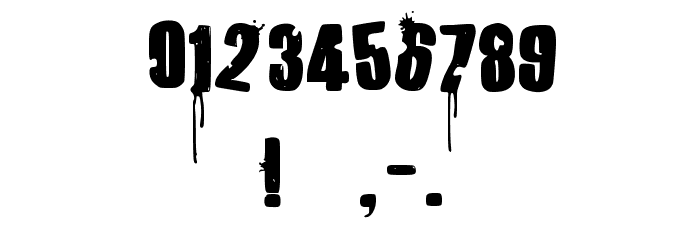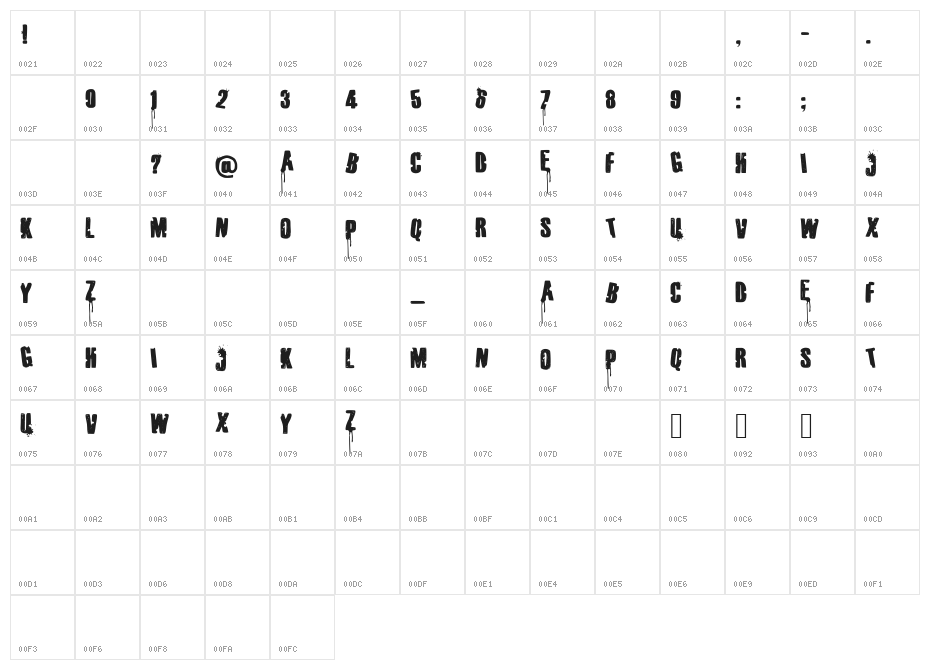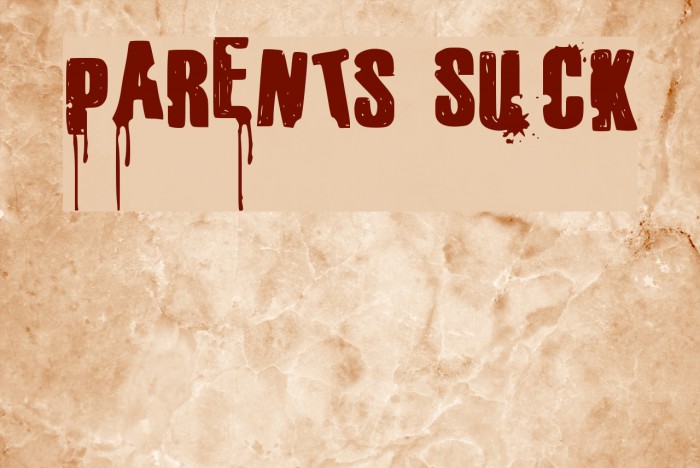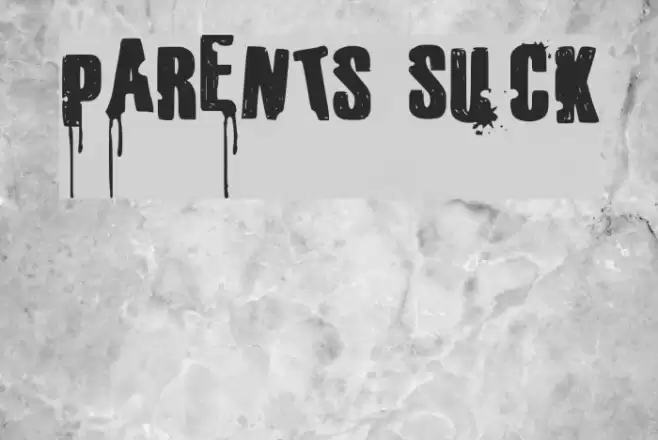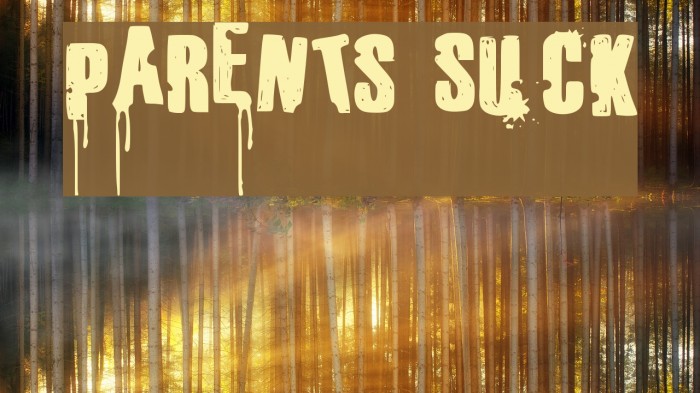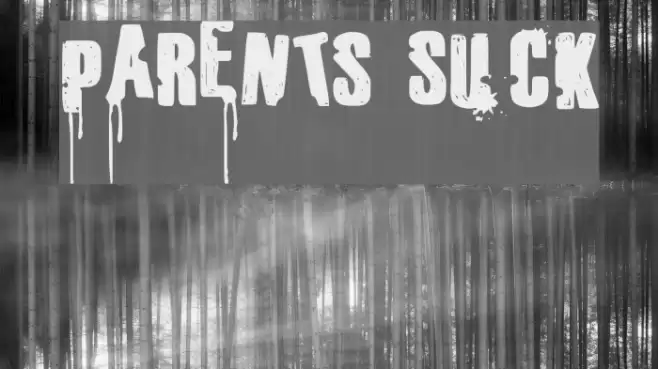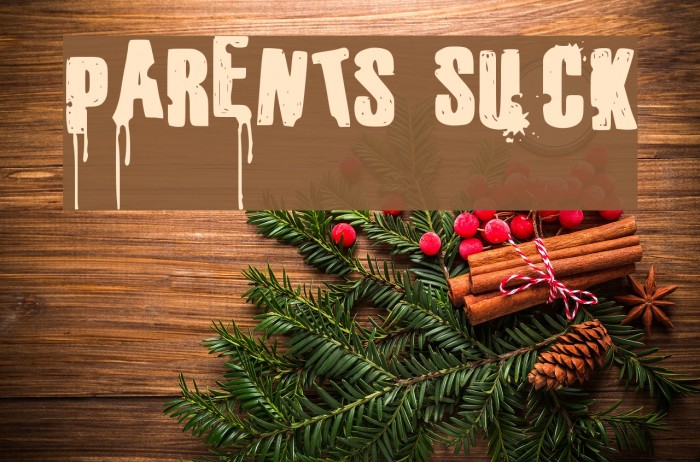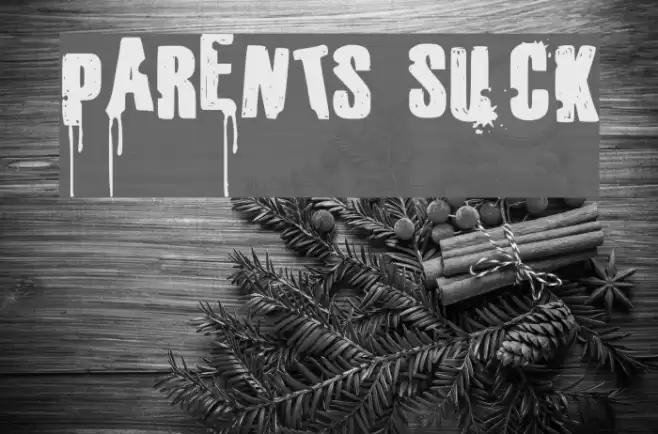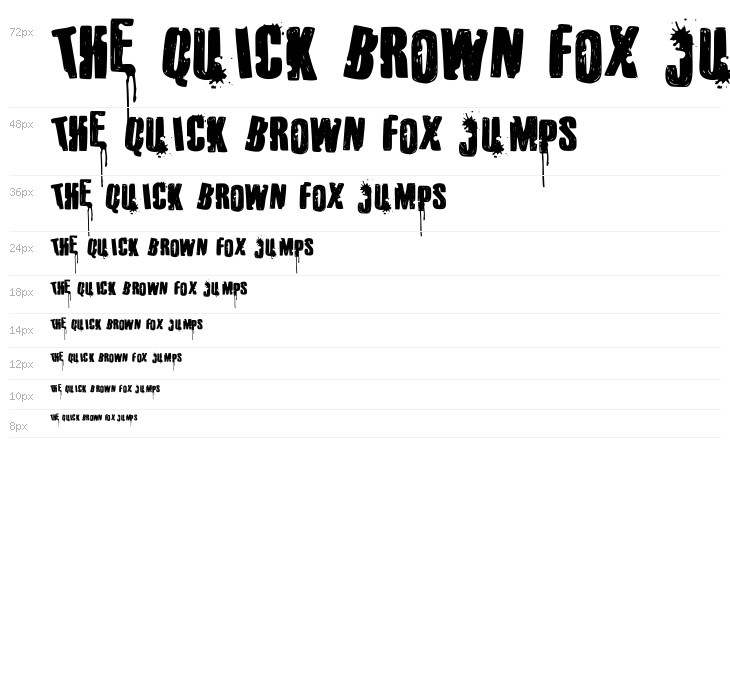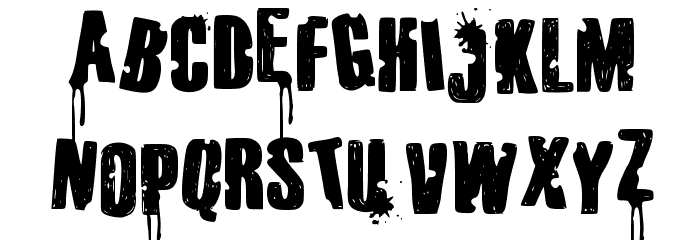
Parents Suck Font
Parents Suck Description
This font features a bold and edgy design with a distinct grunge aesthetic. The characters are heavily stylized with splatters and drips, giving the impression of paint or ink that has been splashed and allowed to run. The uppercase letters are uniform in height, while the numbers and punctuation maintain the same rugged style. This font's unique appearance makes it stand out, ideal for projects that require a rebellious or artistic flair. Its boldness ensures high visibility, making it suitable for impactful headlines or creative designs.
| Overall Style | Grunge, Edgy, Artistic |
| Proposed Projects | Ideal for music album covers, street art posters, edgy branding, or event flyers. |